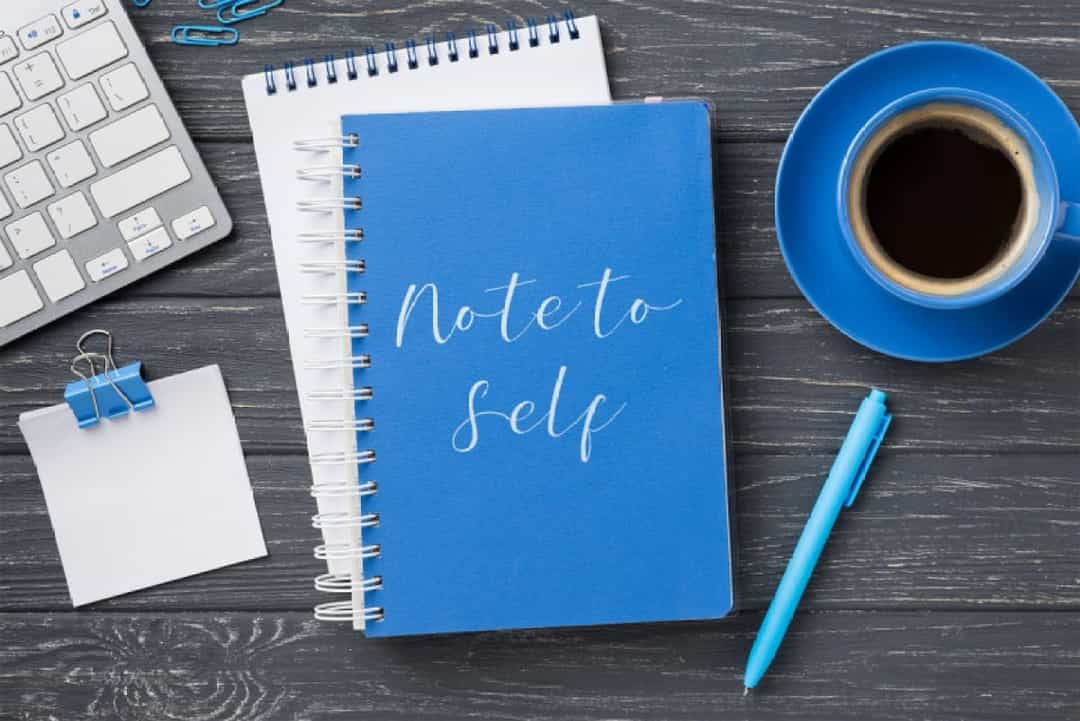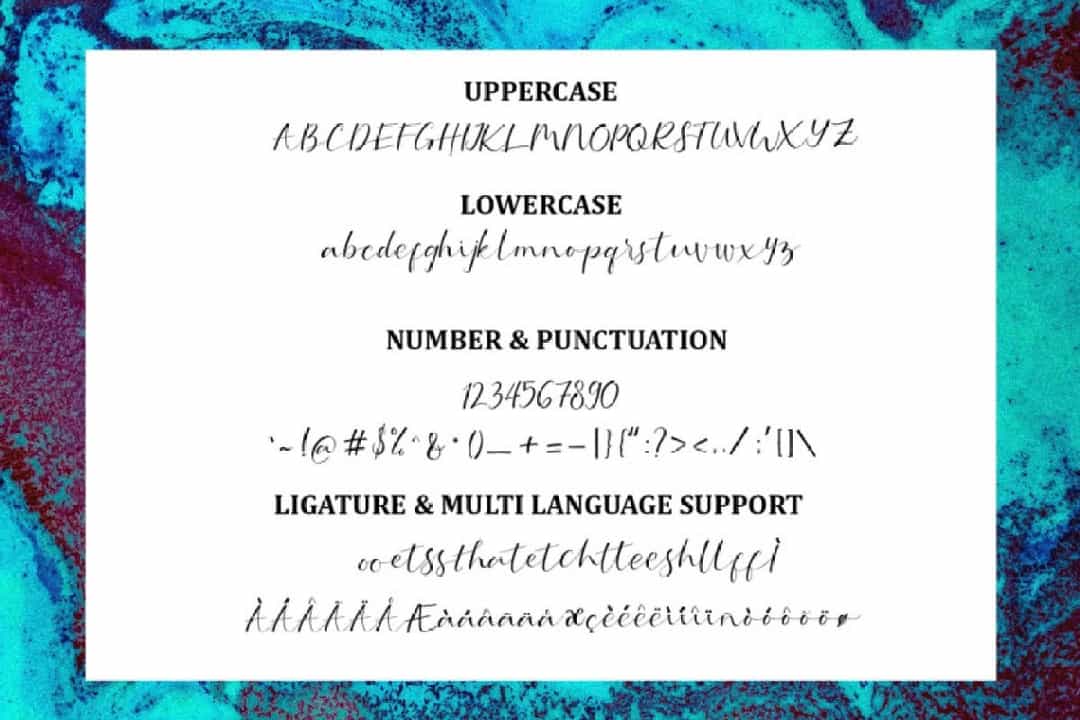
Serotonon Font – A new and modern script font with original calligraphy and still with some deco characters and a tough base! It is suitable for such uses as in invitations to birthdays or any other form of celebration, cards and even corporate cards, branding materials, posters and quotes and many others.